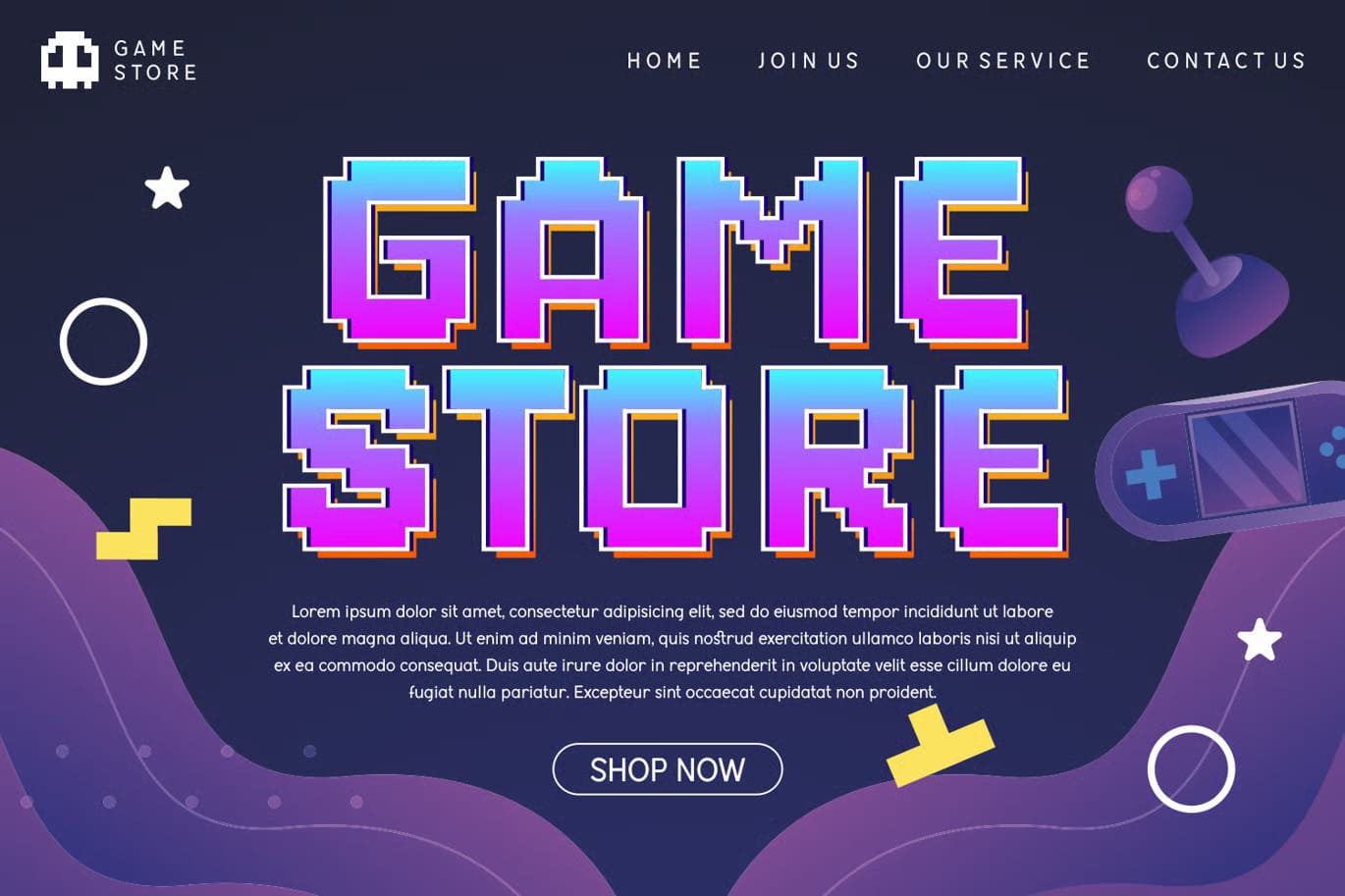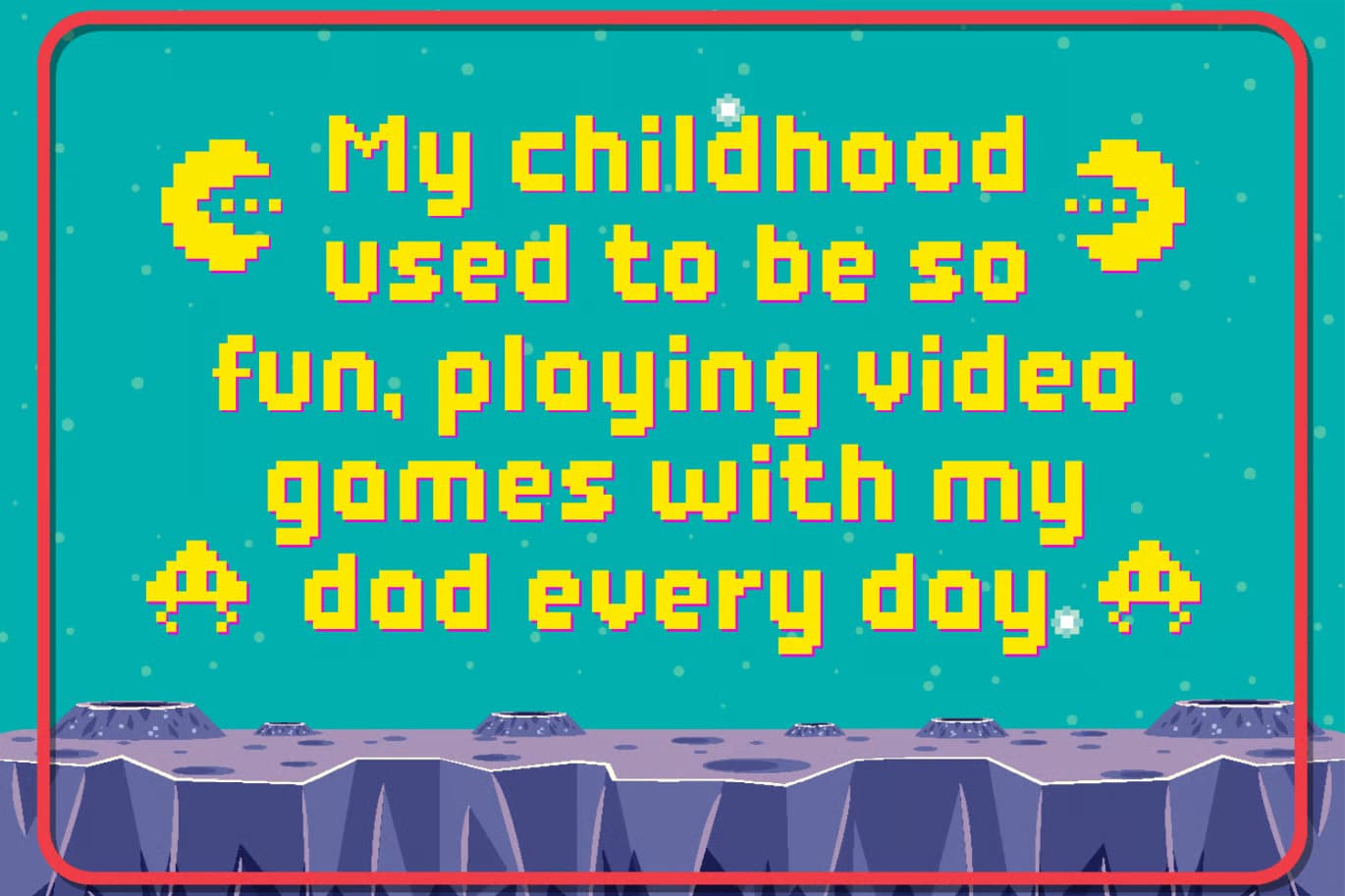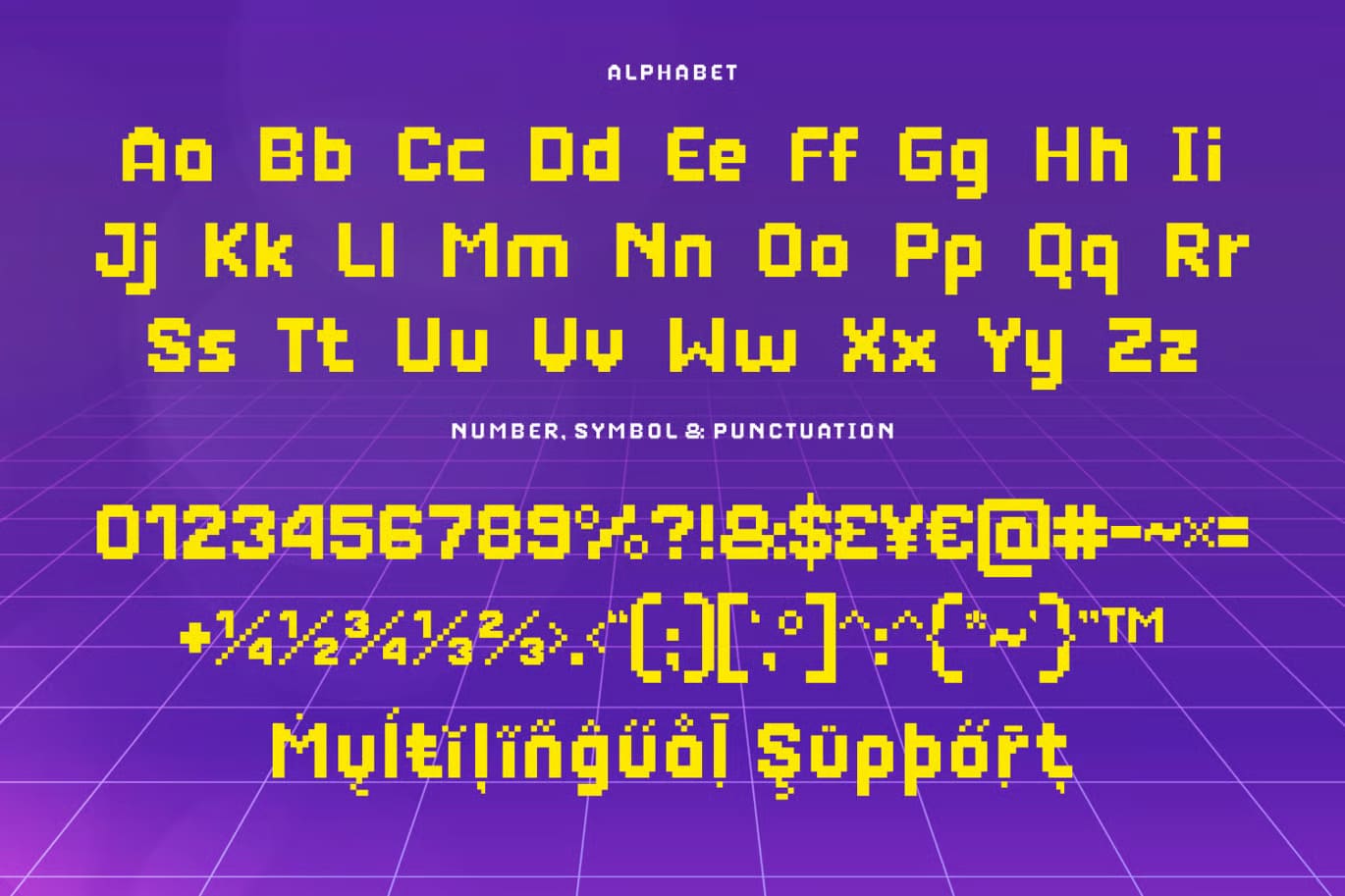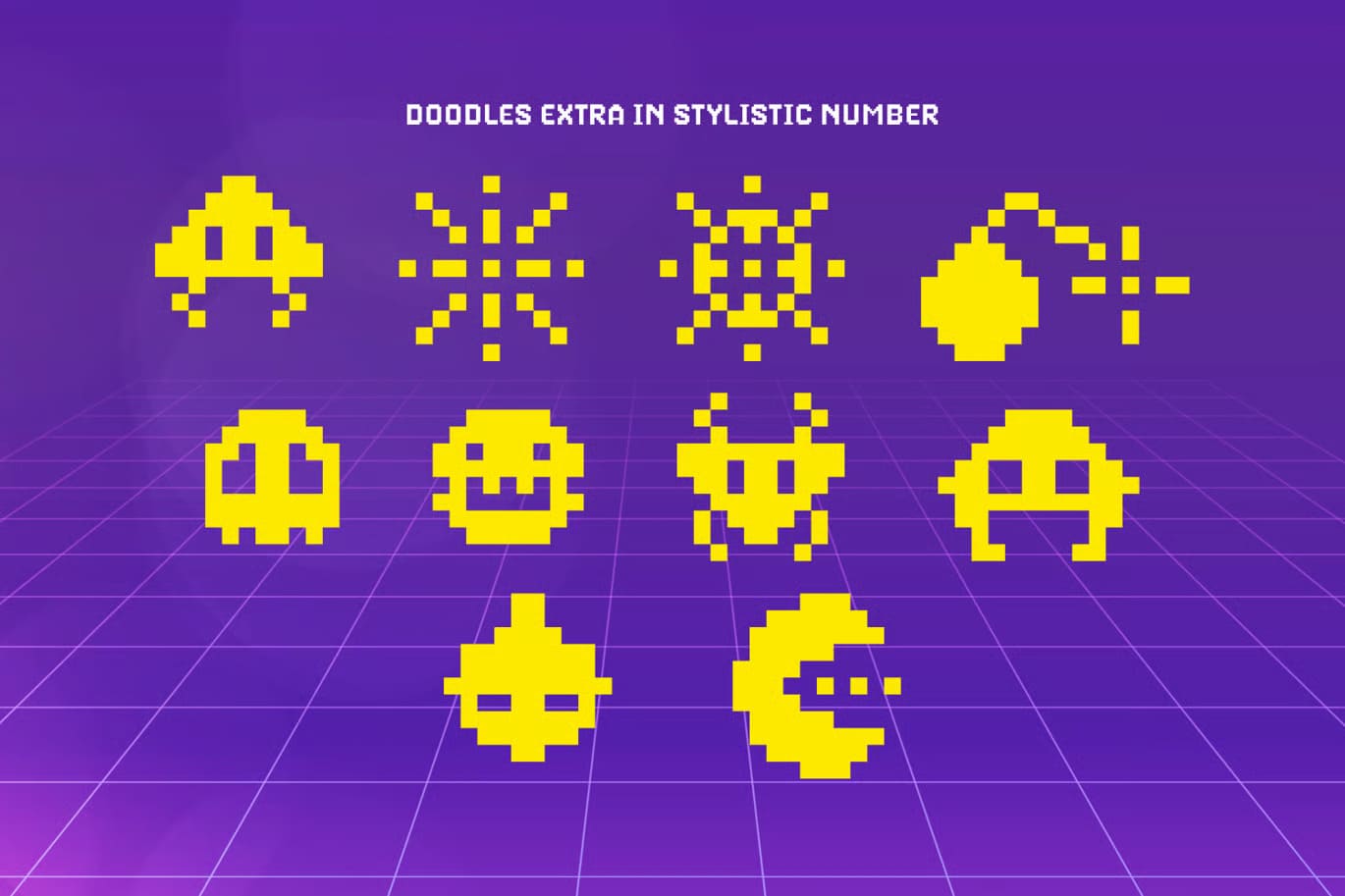
Game Stage is a pixel-style display font inspired by classic arcade games. It has a bold and playful look with chunky shapes and sharp angles that give it a fun and energetic feel.
The font brings a nostalgic gaming vibe while still being clear and easy to use in different types of designs. Its strong style makes it a good choice for posters, titles, and creative projects that need a bit more character.
It is PUA encoded, so you can easily access extra glyphs and decorative elements without any hassle.
- Uppercase and lowercase letters
- Numbers and punctuation
- Stylistic doodles included
- Accented characters
- Supports multiple languages